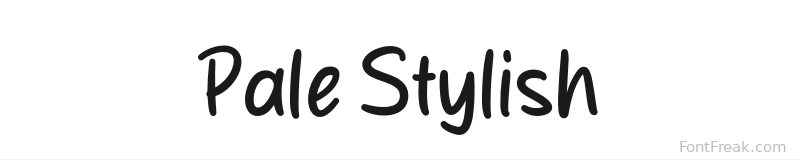
Pale Stylish
About Pale Stylish
Pale Stylish is a charming handwritten font designed by MJType that offers a unique blend of elegance and creativity. As a display typeface, it captures attention with its playful strokes and inviting character. The font features a moderate stroke weight that balances legibility with artistic flair, making it suitable for a wide range of applications. Its smooth curves and slight contrast add a touch of sophistication, while the open spacing enhances readability, ensuring that it stands out without overwhelming the viewer.
This versatile font is perfect for a variety of use cases. It shines in wedding invitations, where its romantic style can beautifully convey heartfelt sentiments. Additionally, it's an excellent choice for branding materials, such as logos and business cards for boutiques or artisanal shops. The Pale Stylish font also works wonderfully for creative projects like greeting cards or promotional materials for events, capturing attention and leaving a lasting impression. Content creators will find it particularly appealing for social media graphics, where its whimsical nature can enhance engagement and visual storytelling.
The target audience for Pale Stylish includes graphic designers looking to add a distinctive touch to their projects, small business owners who want to create memorable branding, and content creators seeking to elevate their visual content.